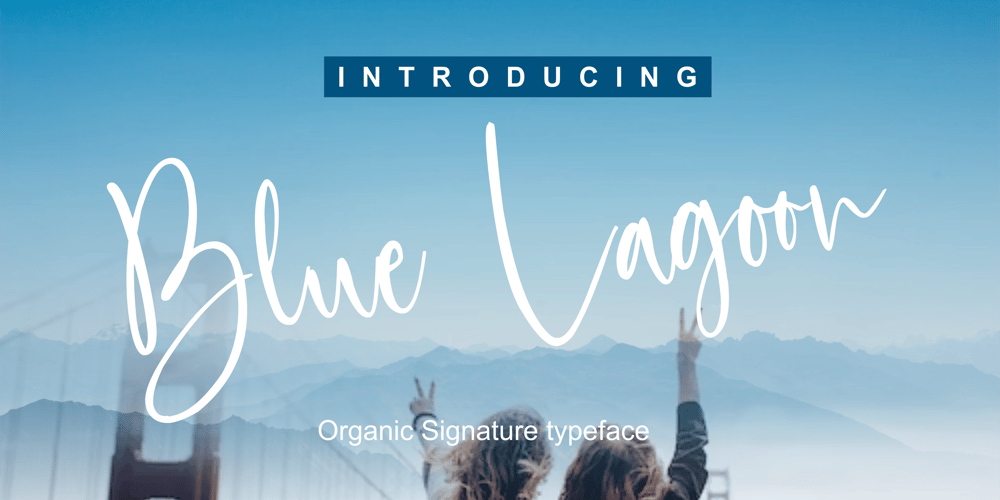
Blue Lagoon
Blue Lagoon font
Blue Lagoon Font Family was designed by Zamjump and published by Zamjump. Blue Lagoon contains 1 styles and family package options. Blue Lagoon is an original handwritten script, made using a ballpoint pen on calendar paper, with distinctive unstructured strokes at the ends. Whether you’re looking for a font for social media or a calligraphy script for a DIY project, this font will turn any creative idea into a true work of art! Great for handwritten quotes, notes, labels, wedding invitations, jewelry, or any project that requires an authentic handwritten touch.Included :- Symbol- Ligature